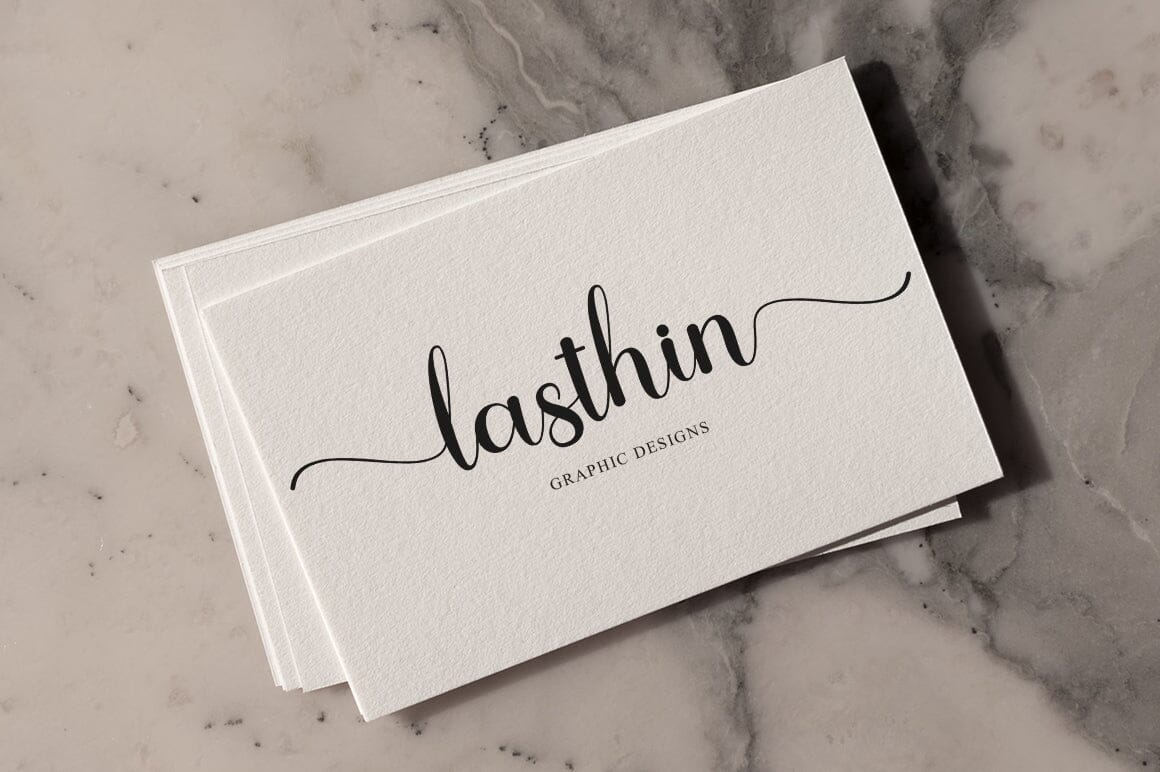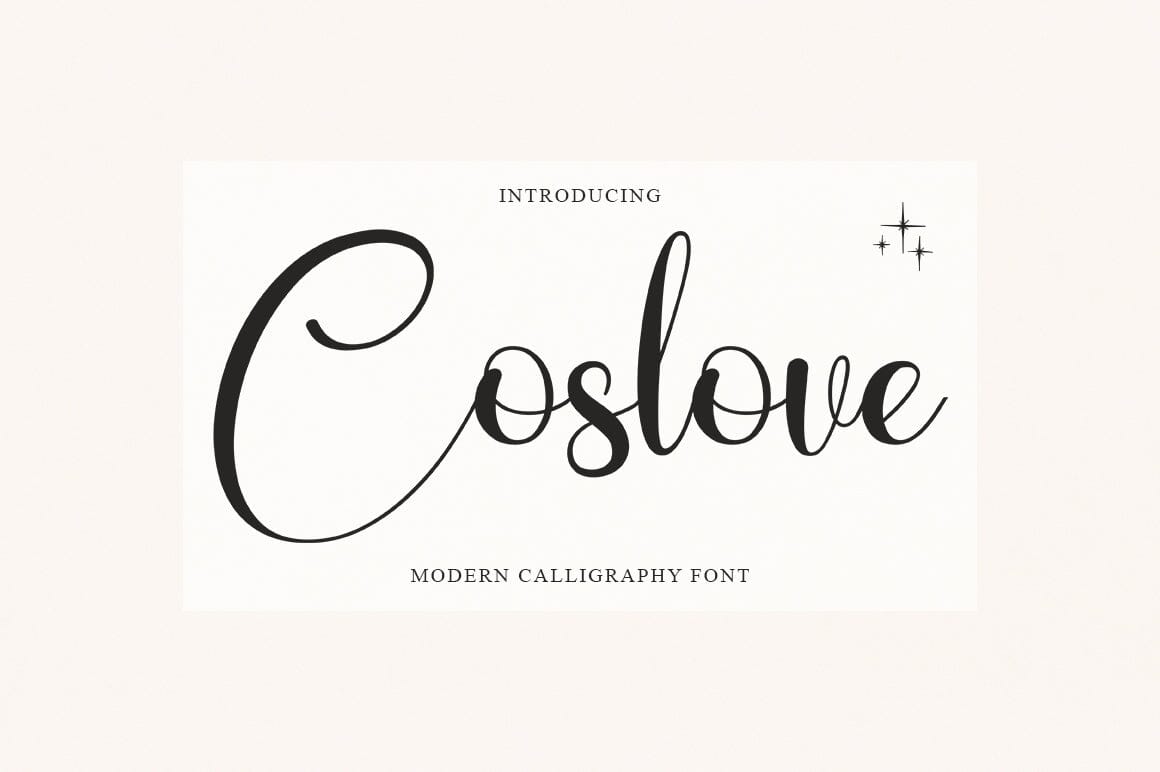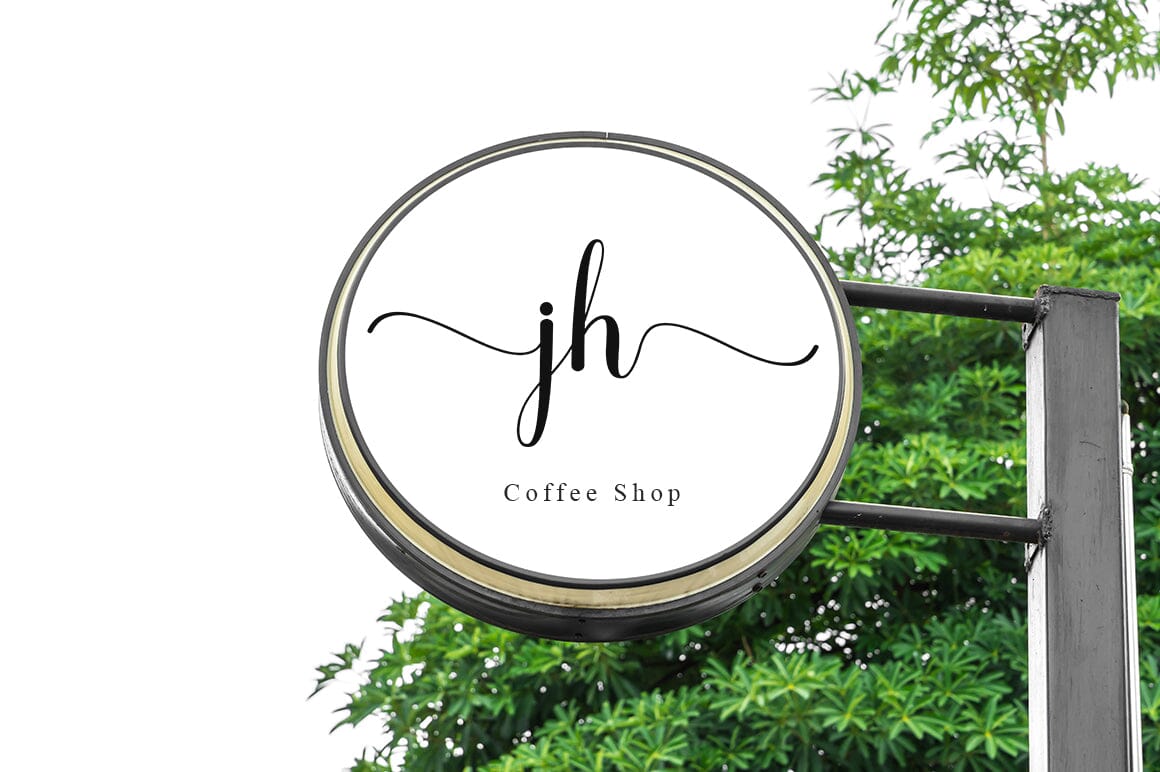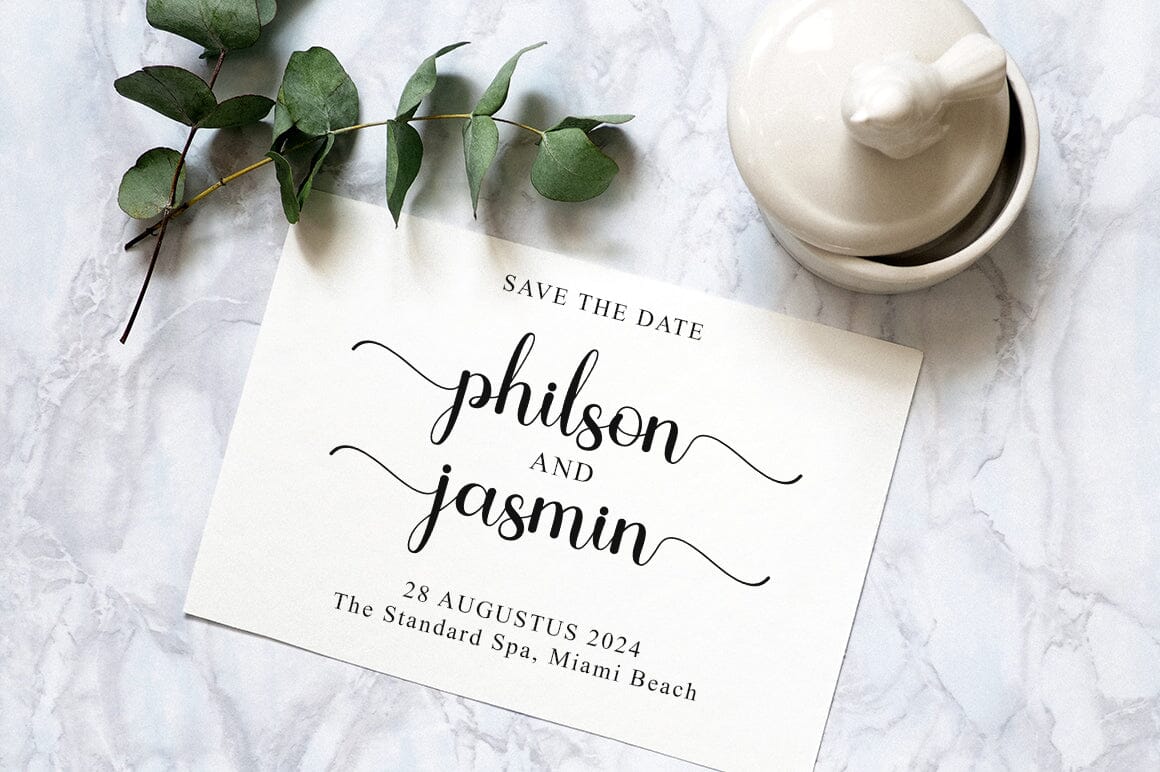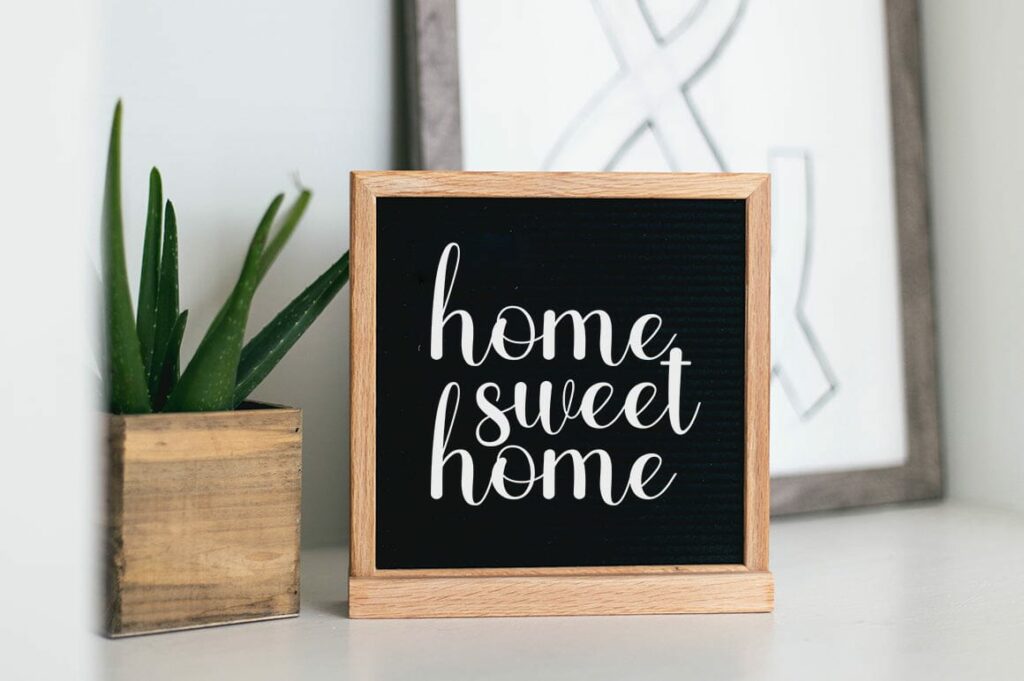
Caslove
About Caslove
Caslove is a beautiful Calligraphy font with a touch of love. Caslove is perfect for branding projects, home appliance design, product packaging, use in business cards, invitation cards, etc. Includes OTF/TTF Thanks for checking! I really hope you enjoy it.